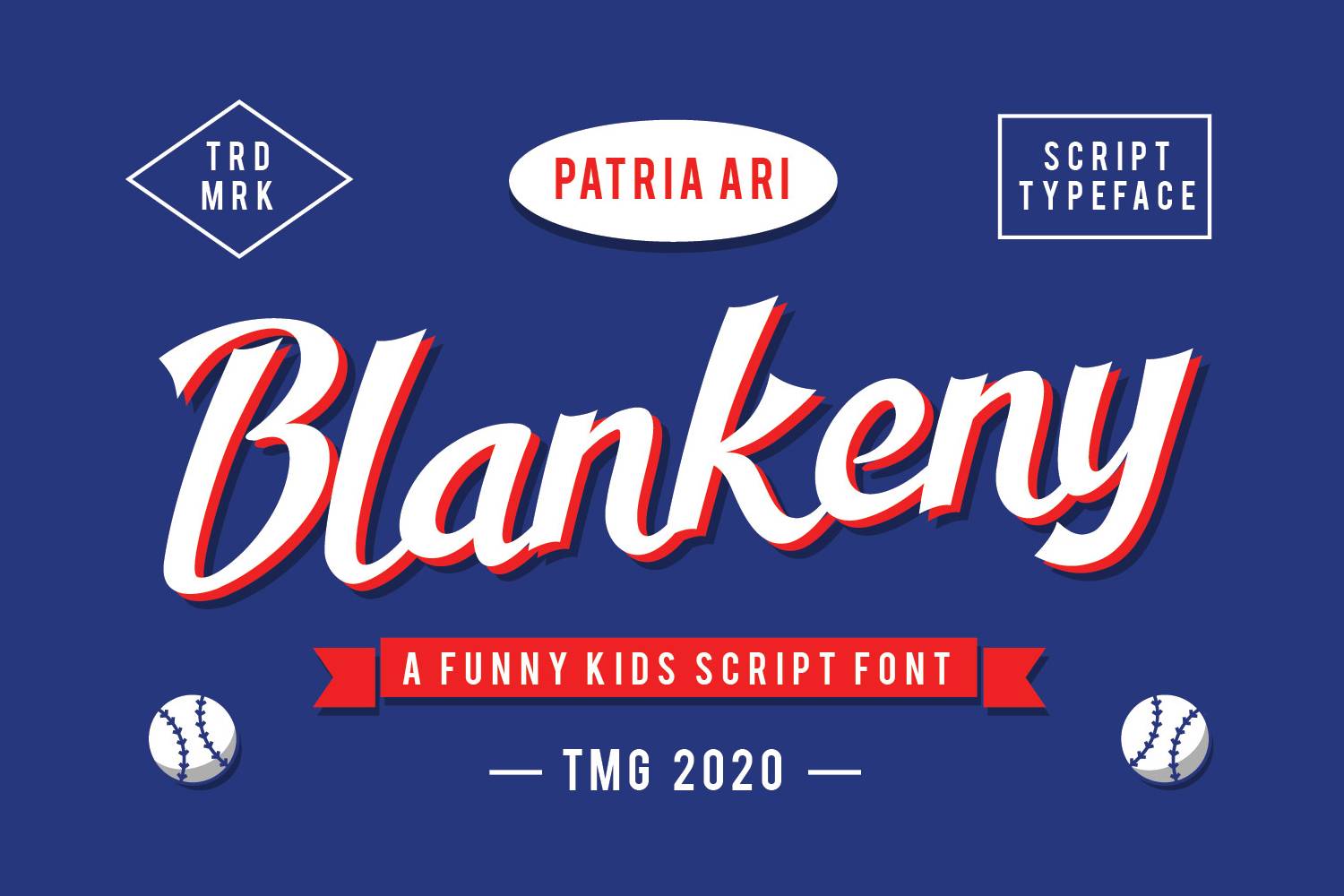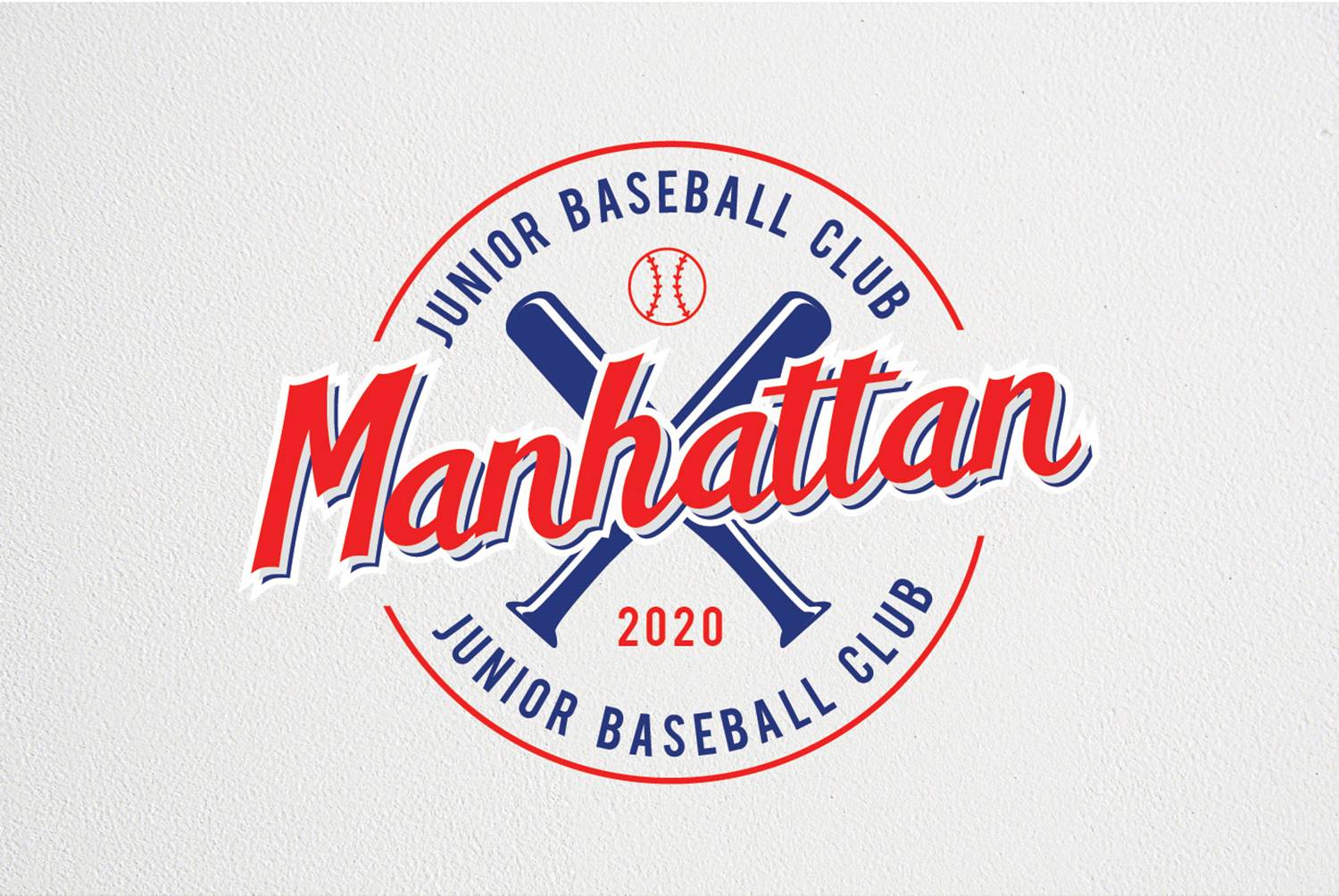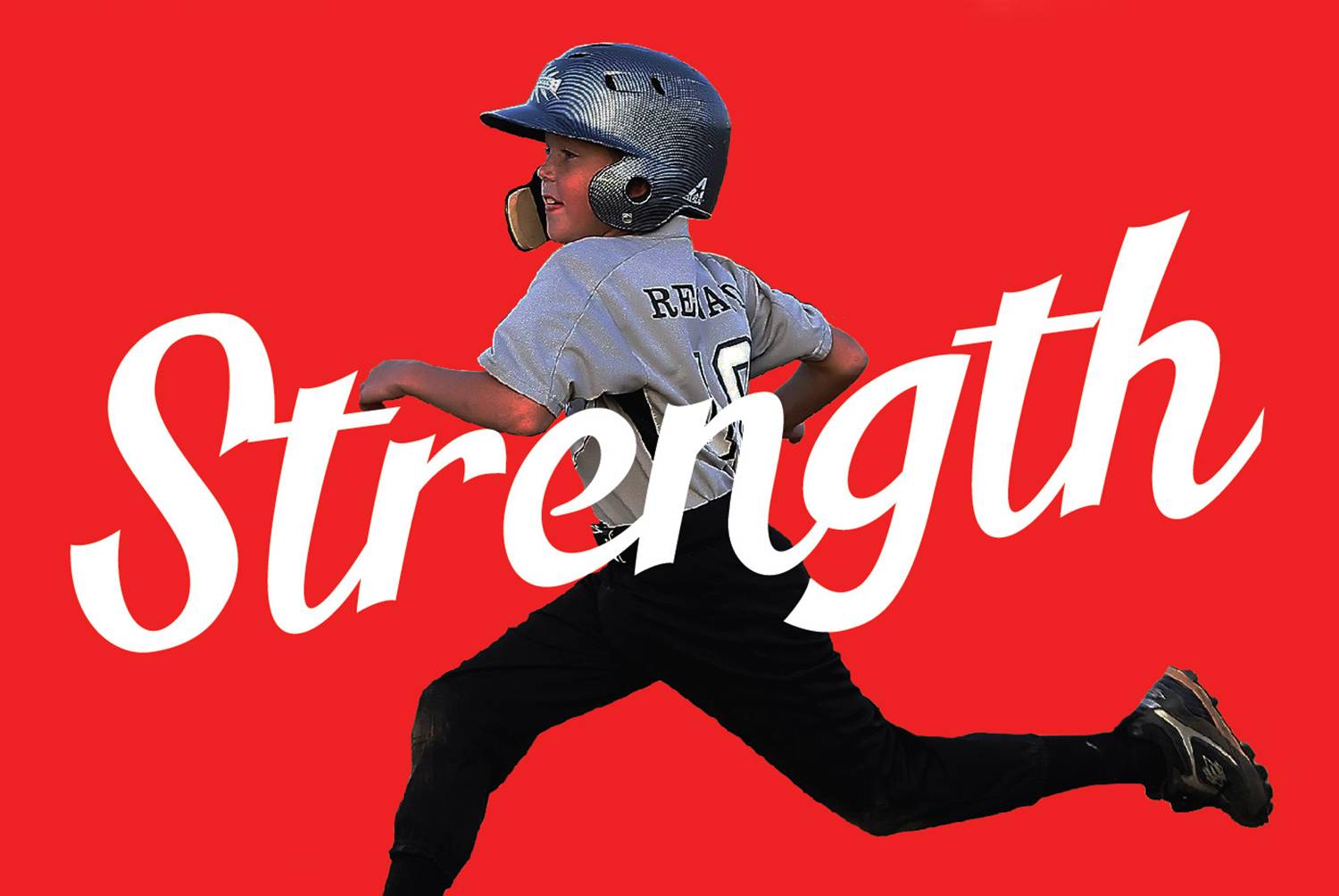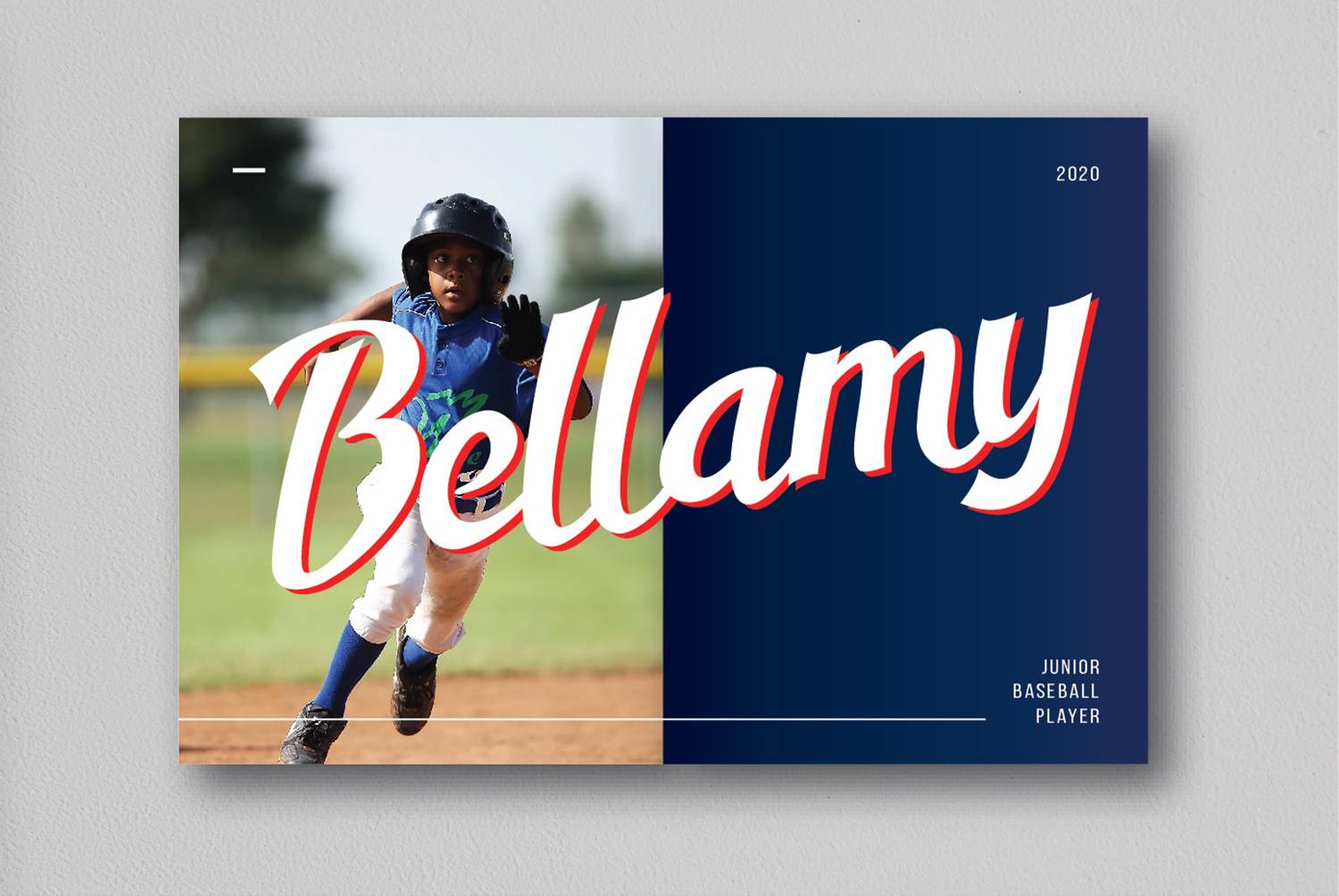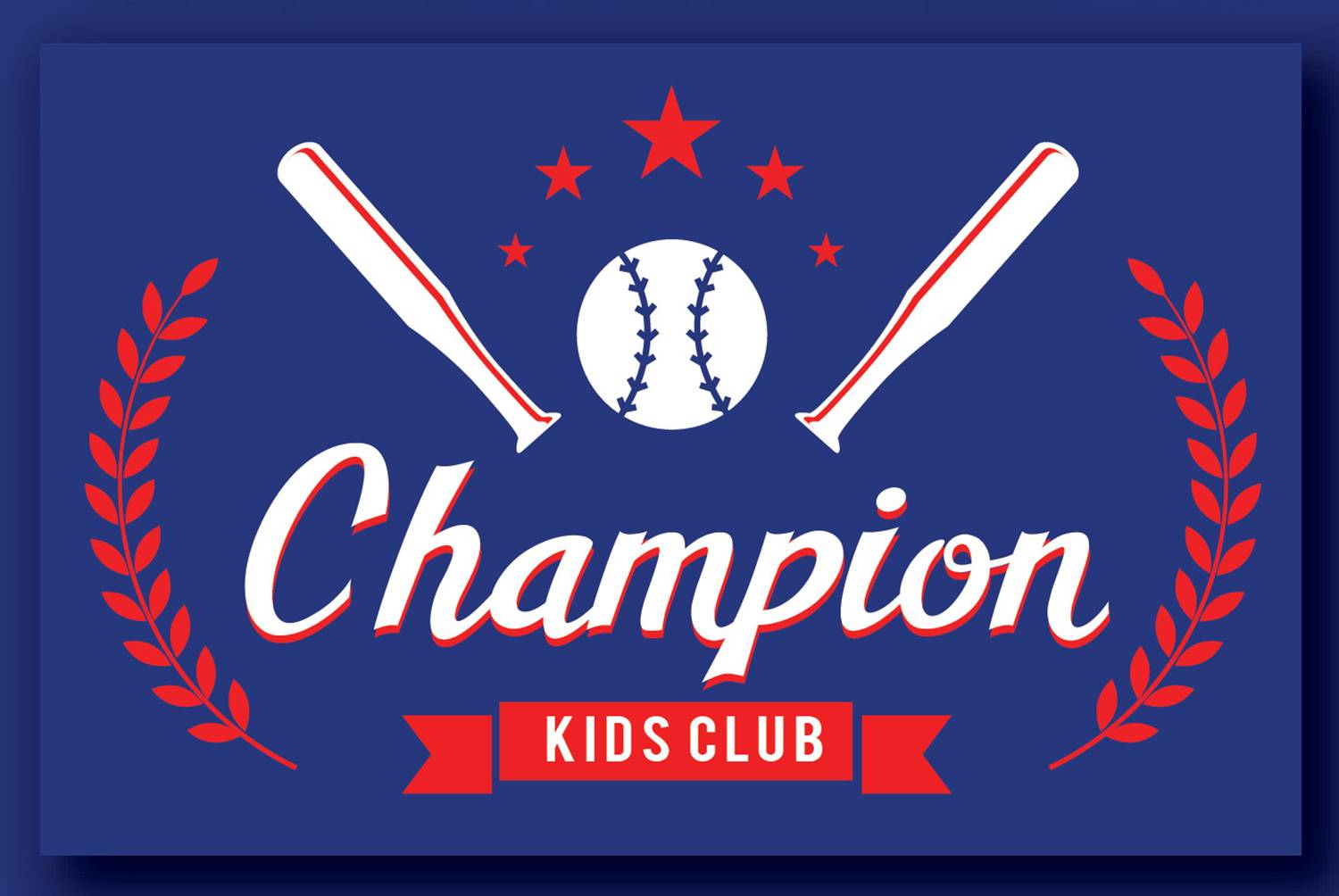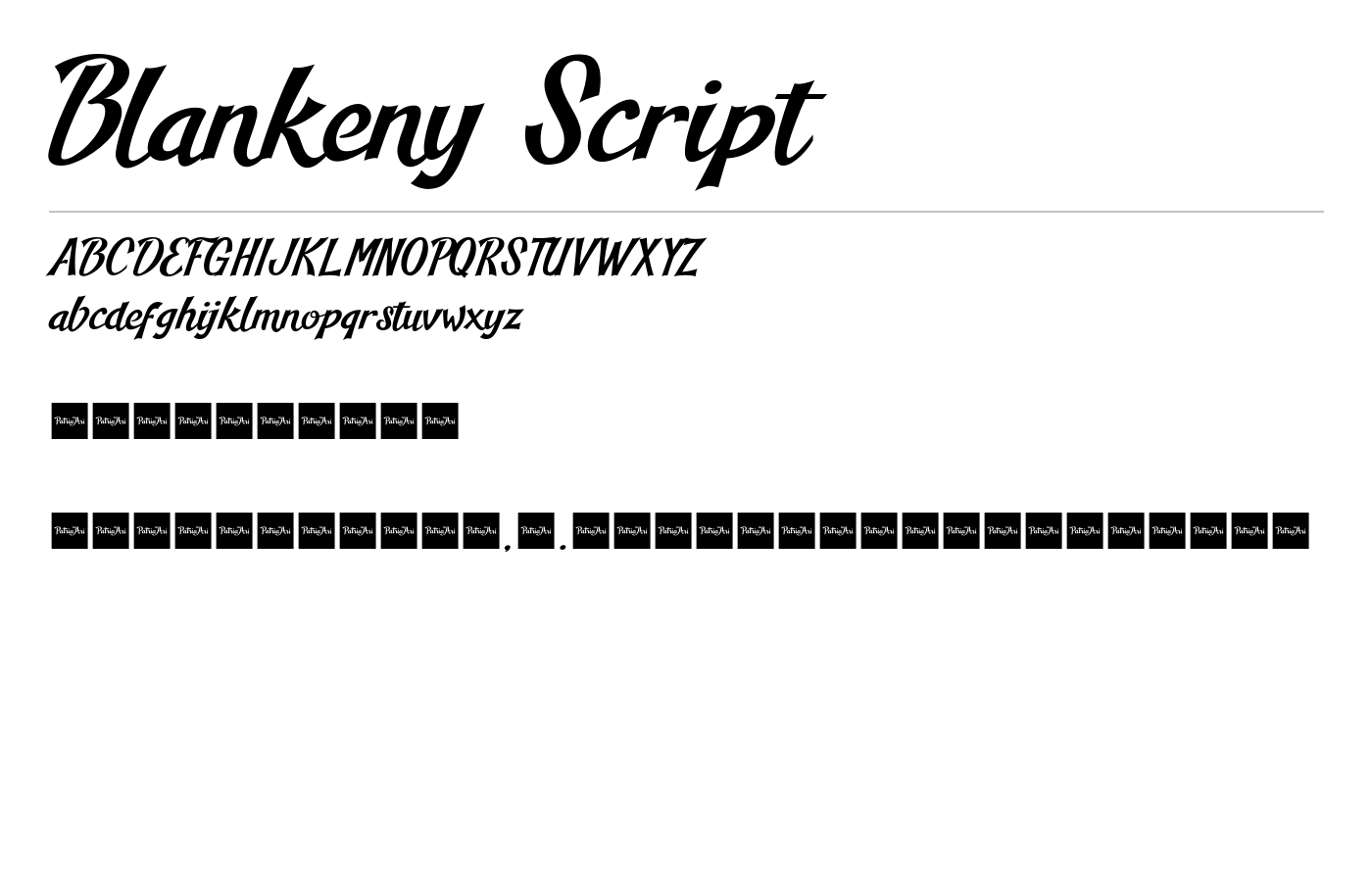
Blankeny Script is a stylish and elegant script font with a lively, slightly playful flow and moderate stroke contrast. Its smooth yet sharp letterforms and refined curves make it perfect for adding a personal, sophisticated touch to logos, invitations, and branding projects that seek a blend of modern charm and classic calligraphy. This font works well for headlines and display use, where its distinct character can shine and create a memorable impression.
Blankeny Font
About Blankeny Font
| Font family | Blankeny Font |
| Designer | Patria Ari Wijonarko |